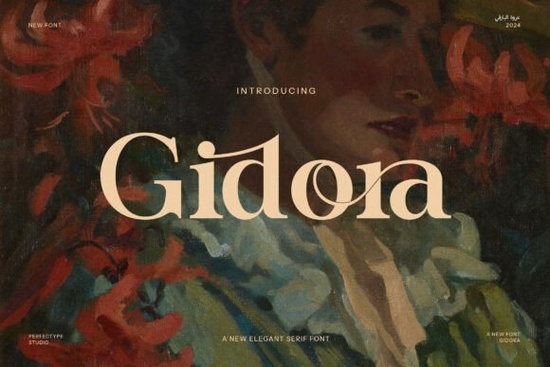
If you're looking for a serif font that balances classic refinement with modern flair, Gidora Font is worth your attention. Designed with careful attention to detail, Gidora brings graceful curves, distinctive serifs, and subtle boldness to projects that call for sophistication without sacrificing readability. Whether you’re crafting luxury packaging, designing a boutique website, or creating elegant invitations, this typeface adds a touch of exclusivity that feels intentional, not overdone.
What makes Gidora stand out among serif fonts?
Unlike many traditional serifs that lean heavily into vintage aesthetics, Gidora merges timeless structure with contemporary styling. Its letterforms are clean yet expressive, and the inclusion of alternate characters and ligatures gives you room to personalize your typography without switching fonts. This flexibility is especially useful if you’re working on branding where consistency and uniqueness both matter think high-end cosmetics, artisanal food labels, or fashion lookbooks.
For designers who appreciate nuanced typography, Gidora’s details like tapered strokes and refined serifs create rhythm across headlines and short blocks of text. It’s not meant for long paragraphs in body copy, but it shines in display use: logos, hero sections, product names, and editorial headlines.
Who should consider using Gidora?
This font works best for creators who need to convey quality and care through visual identity:
- Small business owners launching premium product lines (think candles, skincare, or specialty coffee)
- Print-on-demand sellers designing quote art, wedding stationery, or gift tags with an upscale feel
- Graphic designers building brand identities for boutique clients
- Crafters personalizing handmade goods with elegant labeling
If your project benefits from a sense of craftsmanship and understated luxury, Gidora can help communicate that instantly often before a single word is read.
How does it compare to other elegant serif fonts?
Gidora holds its own alongside other refined options in Creative Fabrica’s collection. For example, while Magic Seventie leans into 1970s editorial charm with wider proportions, Gidora feels more restrained and architectural. Similarly, Mistory Elegant offers delicate swashes better suited for romantic themes, whereas Gidora maintains composure even at larger sizes.
You might also explore Rainfolk if you prefer a softer, hand-drawn serif but if you want crisp precision with personality, Gidora delivers that balance. Each of these fonts serves different moods, so your choice depends on whether your brand voice is warm, dramatic, minimalist, or opulent.
Practical uses beyond logos and packaging
While Gidora excels in branding, don’t overlook its potential in other creative contexts:
- Magazine layouts: Use it for feature headlines or pull quotes to add visual hierarchy.
- Boutique signage: Its strong silhouette reads well even at smaller scales on shop windows or menu boards.
- Social media graphics: Pair it with clean sans-serifs for contrast in Instagram posts or Pinterest pins.
- Product mockups: Apply it to bottle labels, fabric tags, or digital templates to showcase premium offerings.
Because it includes OpenType features like stylistic alternates and ligatures, you can tweak individual letters to avoid repetition ideal when spelling out brand names or short slogans.
To make the most of Gidora Font in your next project:
- Confirm your software supports OpenType features (most modern design apps do).
- Test readability at your intended size especially for print applications.
- Pair it with a neutral sans-serif (like Montserrat or Lato) to keep focus on Gidora’s elegance.
- Use sparingly: one or two words often have more impact than full paragraphs.
Gidora isn’t just another pretty font it’s a thoughtful tool for creators who value both aesthetics and intention. If your work aims to whisper “quality” rather than shout it, this serif could be the quiet signature your designs have been missing.